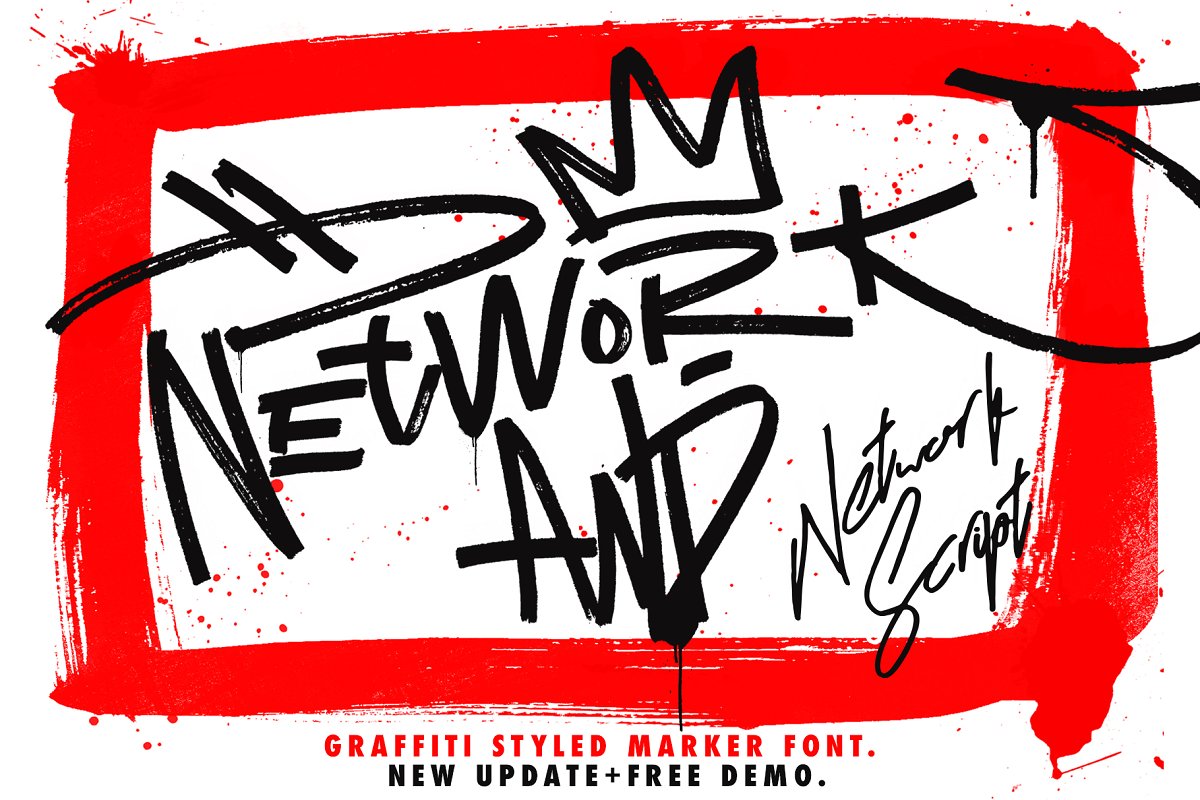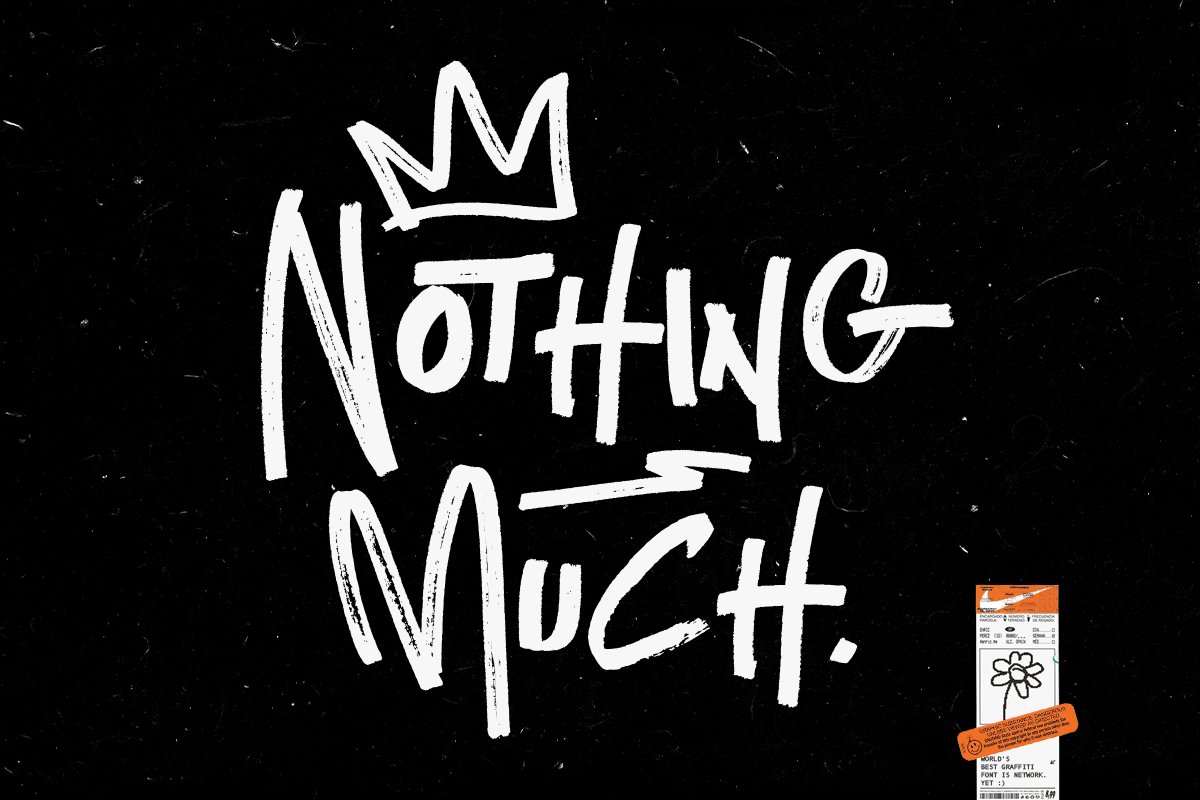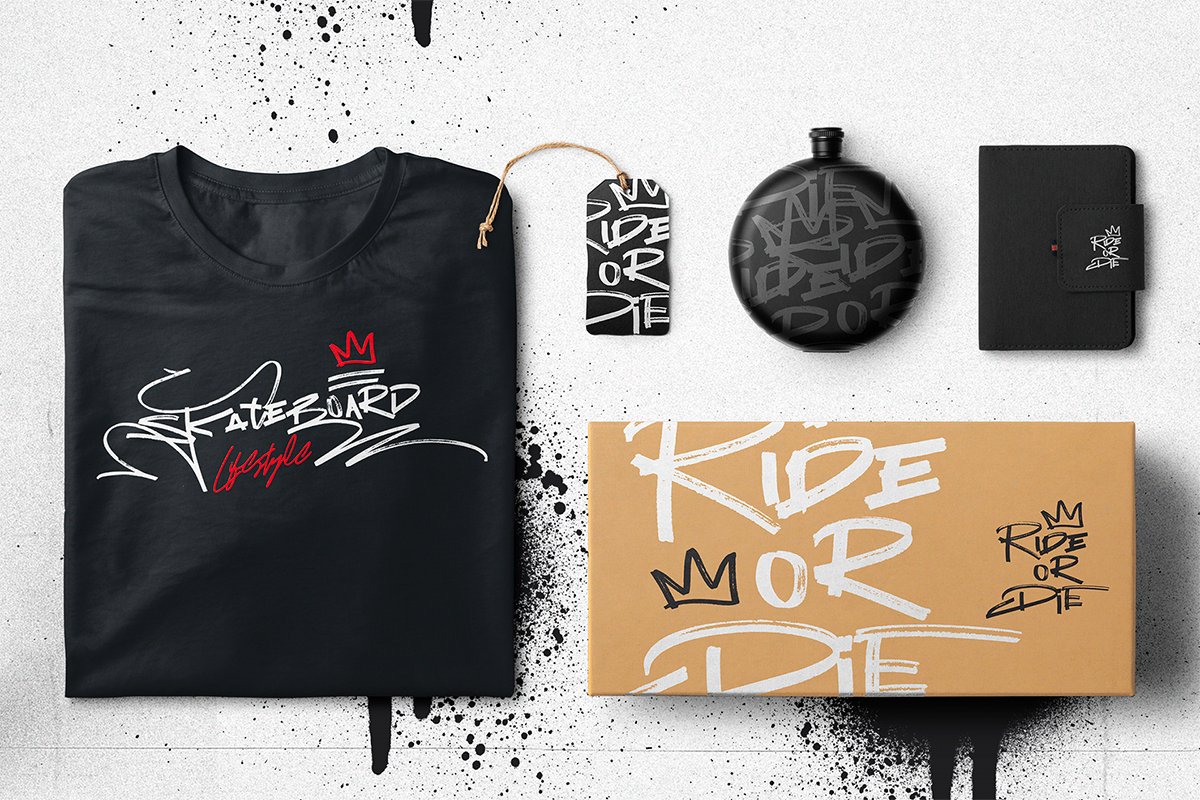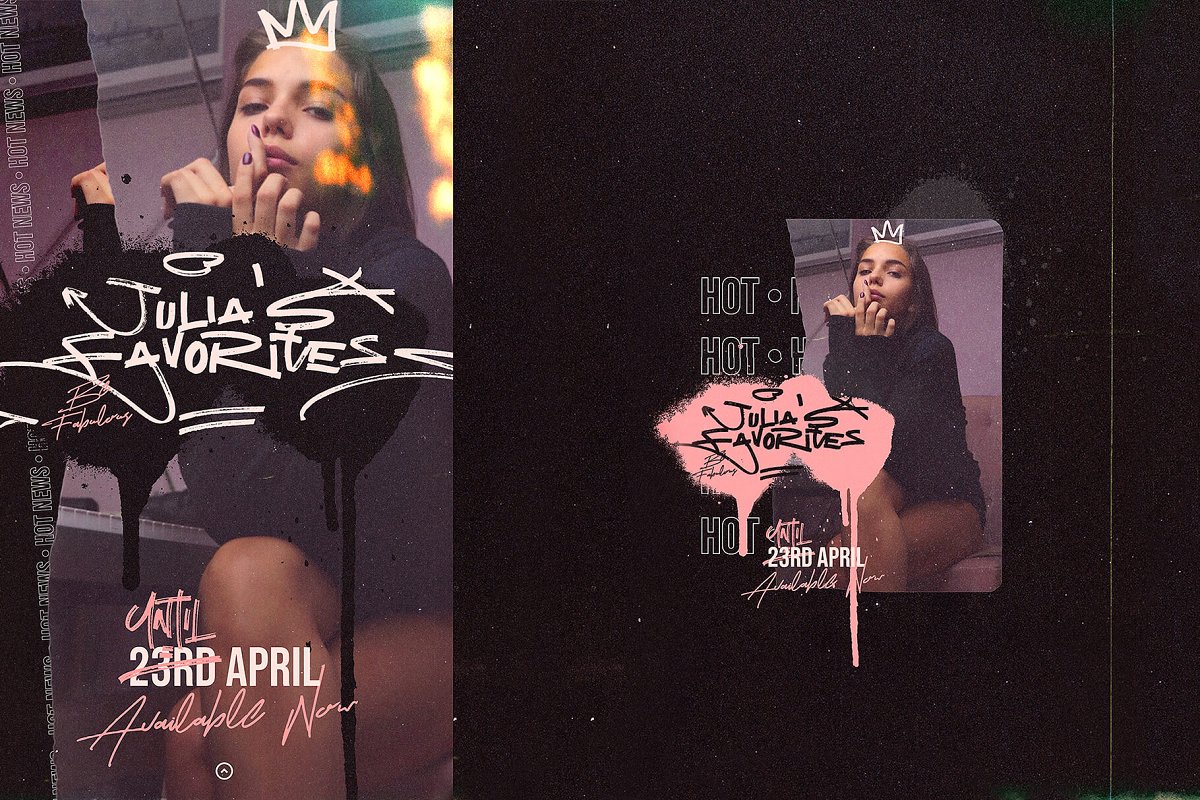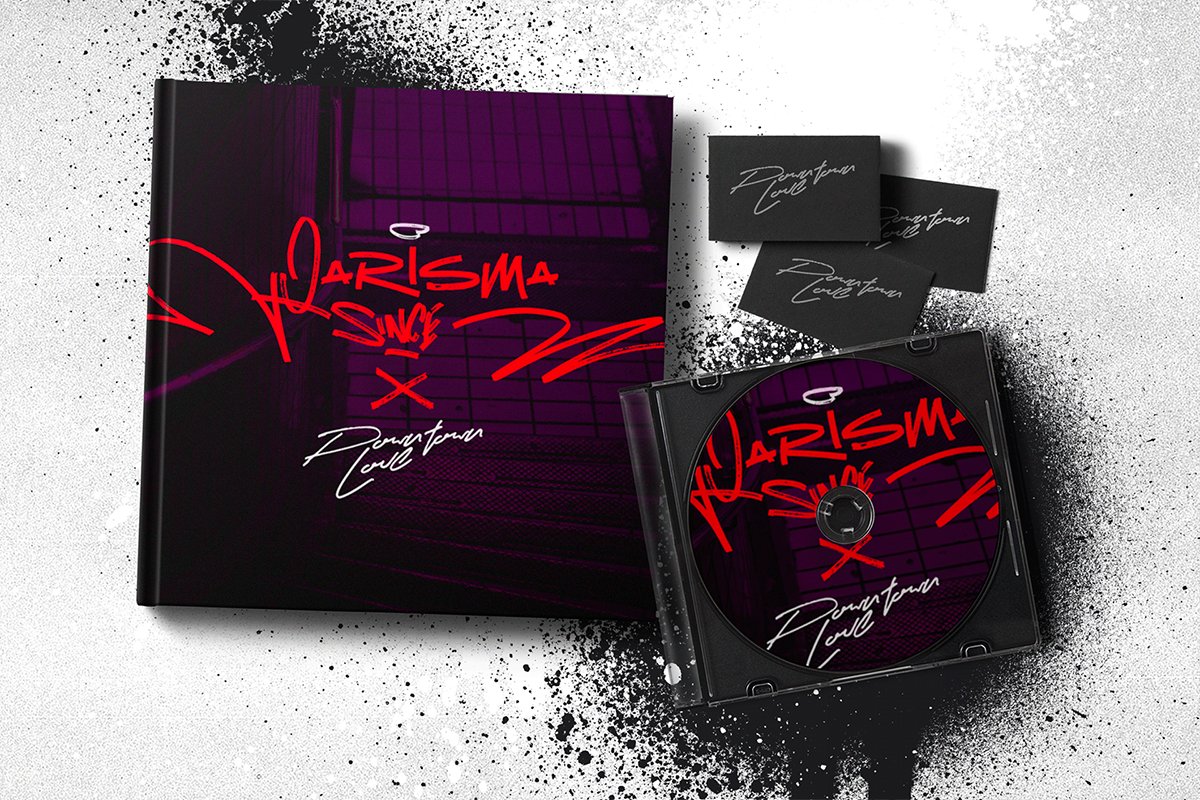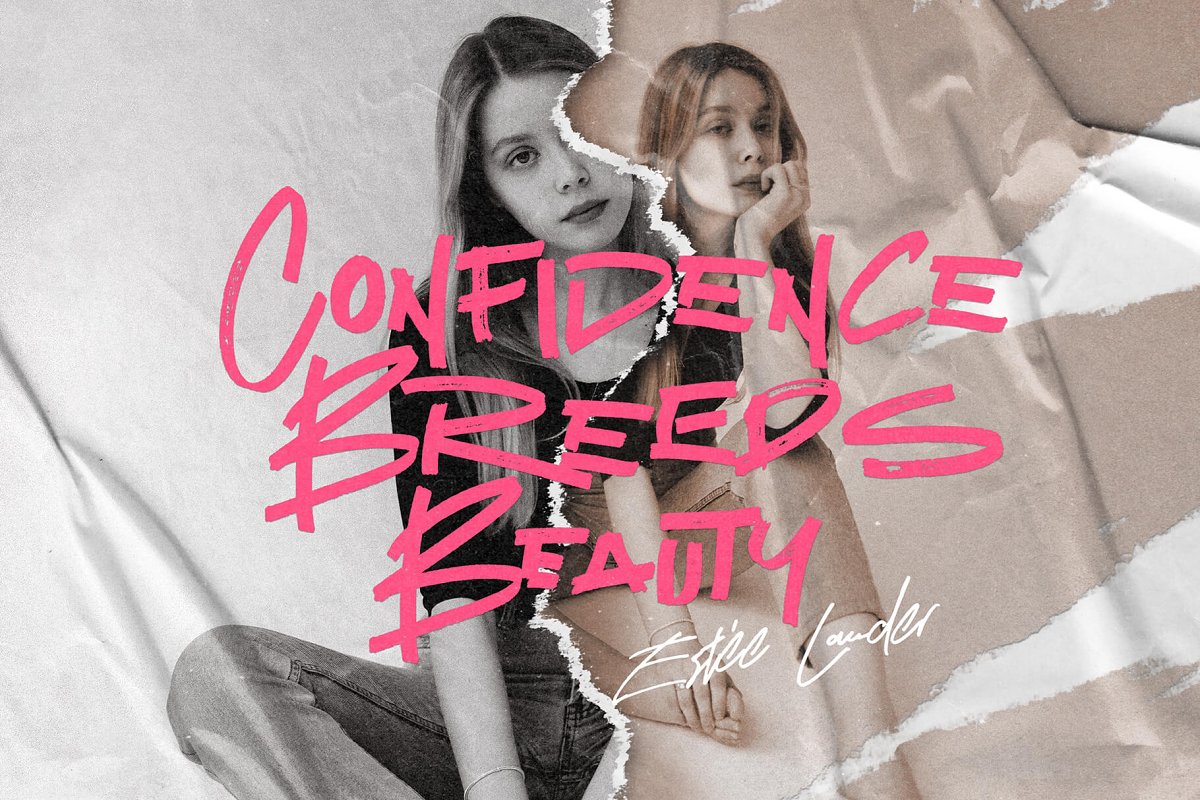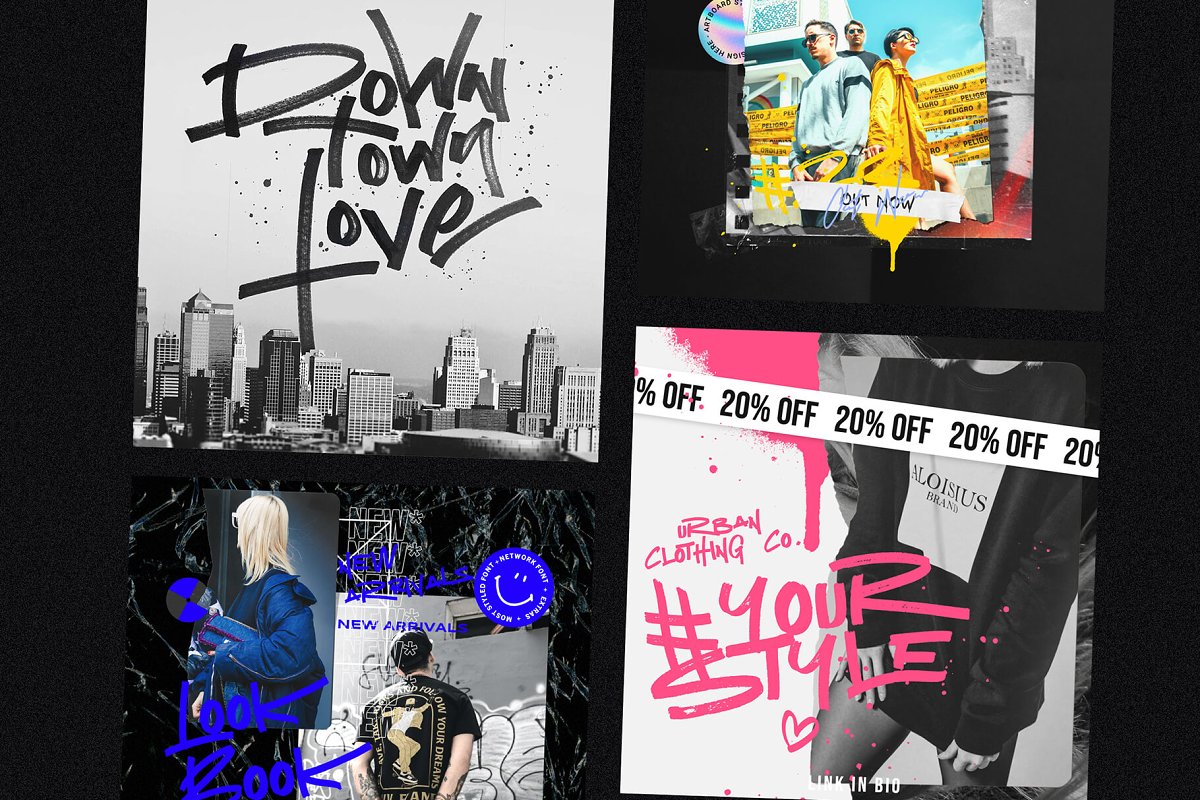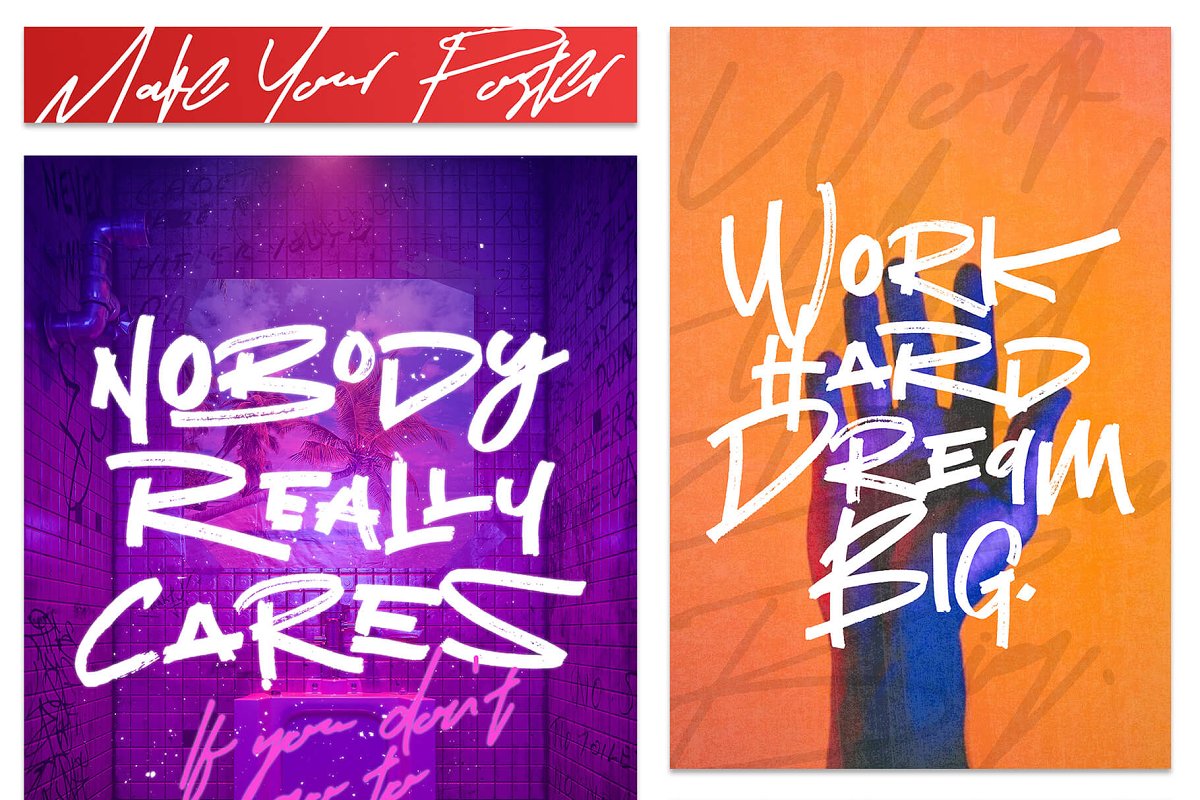
About the Network and Extras Updated Font
STYLE, UPDATED, Optimized font files, brand new web file formats, and six spray textures, Uniqueness reborn, This is Network, World’s best graffiti and non-graffiti marker-styled font ever, Yet:)Hello there! I am introducing my new font Network! I called with this name because Network Fonts and Extras for your lifestyle rather than your designs
Network font, carefully selected from hundreds of letters, Signature-styled Network Script perfectly fit next to the Network Font, Besides all this, the Network Swashes Font is designed to customize your designs, Examine the presentation for all inspirational examples and make sure to see the all pages please click on preview images to see full presentations
Create your Brand: Unlike a standard font to create a new brand concept, Be different life, Your own, Create your own mark: That’s the most special part of this font, A brand new identity for your personal signatures, WHAT YOU GET?Network